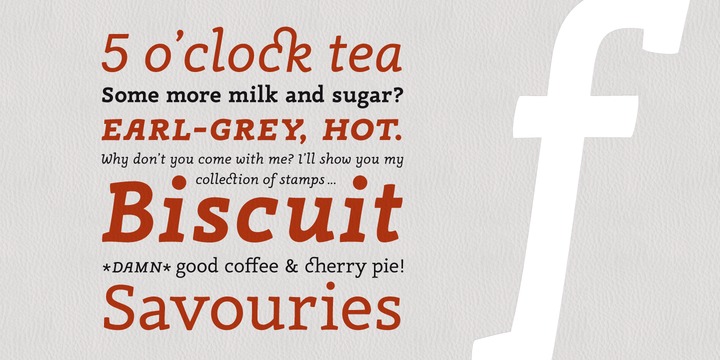
Trigot
trigot font
Trigot is a beautiful modular typeface. It is known for its unique style wherein each form and every character is developed carefully from the basic geometric form of the triangle. The construction is very simple and the font holds a striking resemblance to an ancient gothic black letter font. The letters for this unique font are … Read more
Canapé
Canape font
Canapé is anchored in the idea of letters with a faintly curved and vaguely amended line. This helps the typeface get a warm and friendly feeling and a kind of haptical appearance. This brings certain type of cosiness to any communication through lettering. Canapé has been crafted with great attention to detail. The type family … Read more
Calibri
Calibri is definitely a modern sans serif family typeface that embraces subtle roundings on stems and corners. The font features real italics, small caps, and a number of numeral sets. The proportion of Calibri facilitates high impact in snugly set lines of full-size and small text in a similar way. Calibri’s countless curves and the … Read more
ITC Blair
ITC Blair font
ITC Blair font family was originally crafted by Jim Spiece in the year 1997. It is a contemporary, flexible version of the Blair font initially designed and released in the year 2000 by the Inland Type Foundry. The upper case letters of sans-serif are wide. It works towards offering the font a panoramic feel. Download ITC … Read more
Franklin gothic
Franklin Gothic
Franklin Gothic and its related faces are realist sans-serif typefaces originated by Morris Fuller Benton (1872–1948) in 1902. “Gothic” is an increasingly archaic[citation needed] term meaning sans-serif. Franklin Gothic has been used in many advertisements and headlines in newspapers. The typeface continues to maintain a high profile, appearing in a variety of media from books … Read more